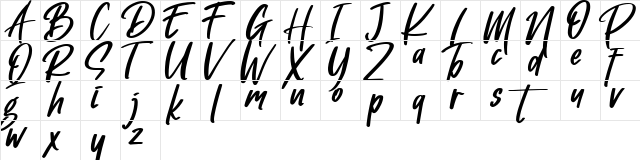
Gotten Say Regular
| Designer | Muhammad Sirojuddin - Jogjakarta 2019Letter Siro |
Design Context for Gotten Say Typeface
Gotten Say is a composed and adaptable typeface that performs quietly and consistently across a wide range of design contexts.